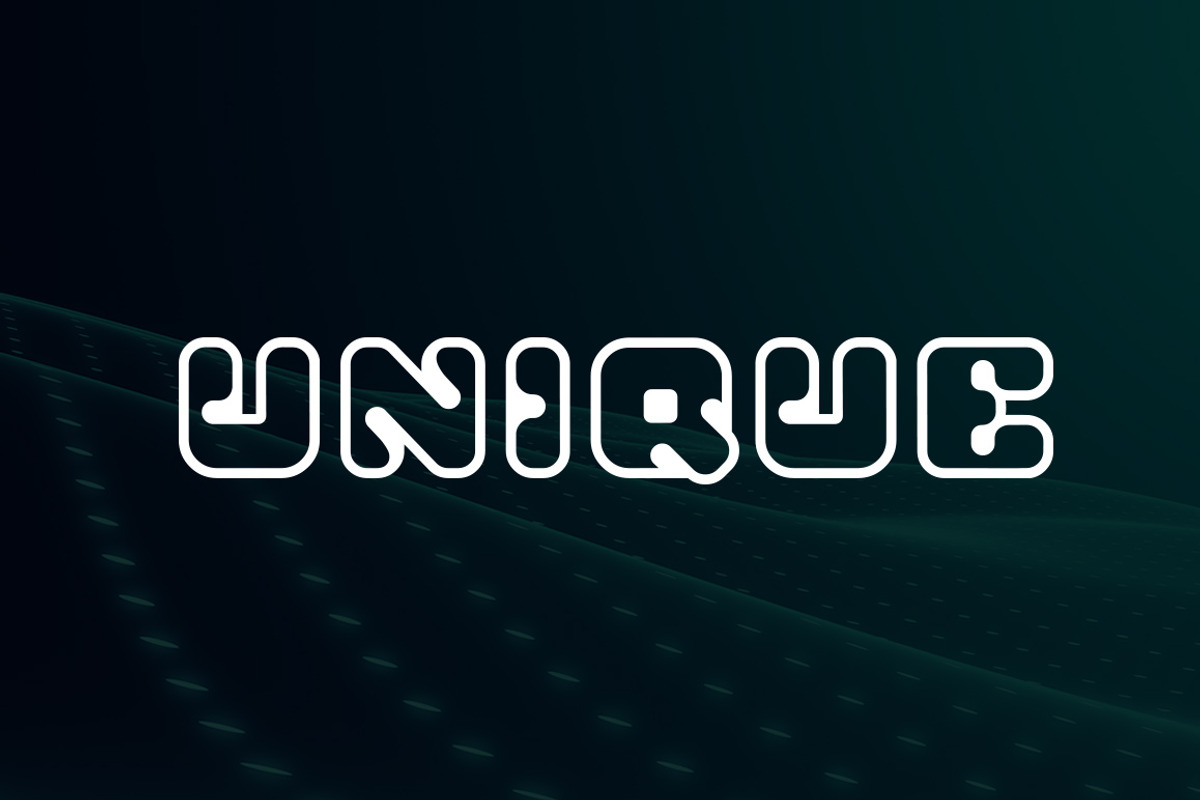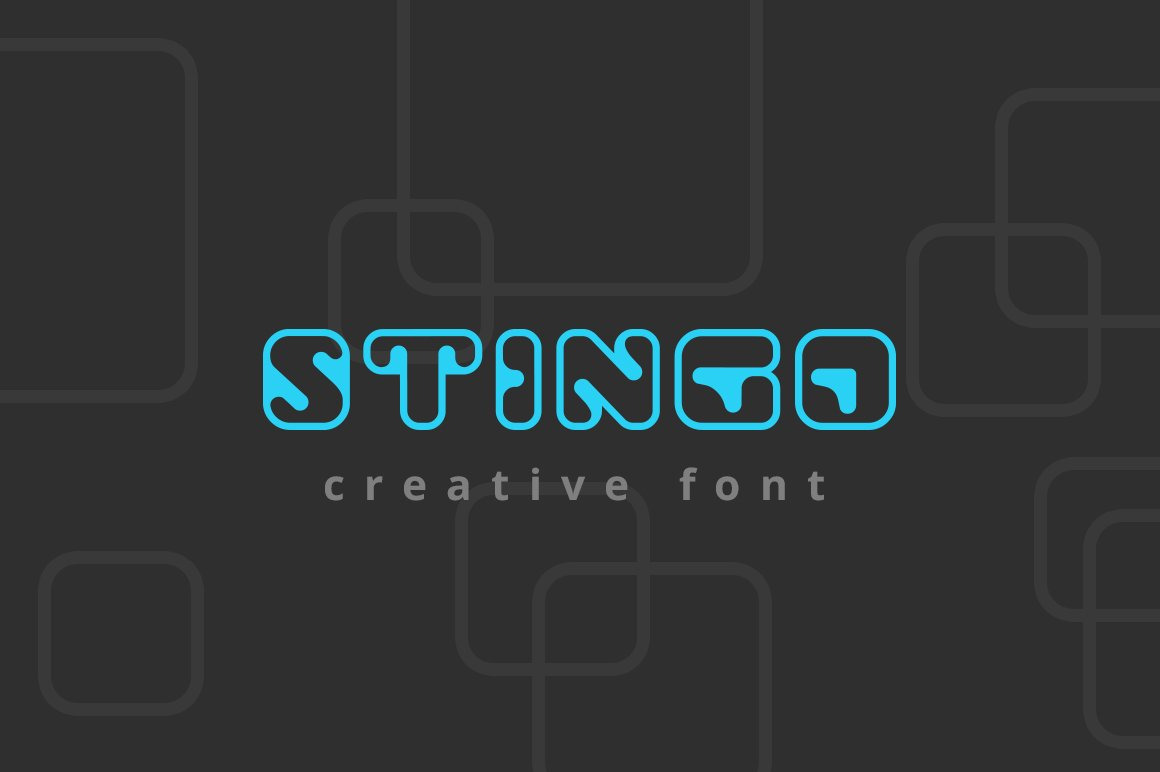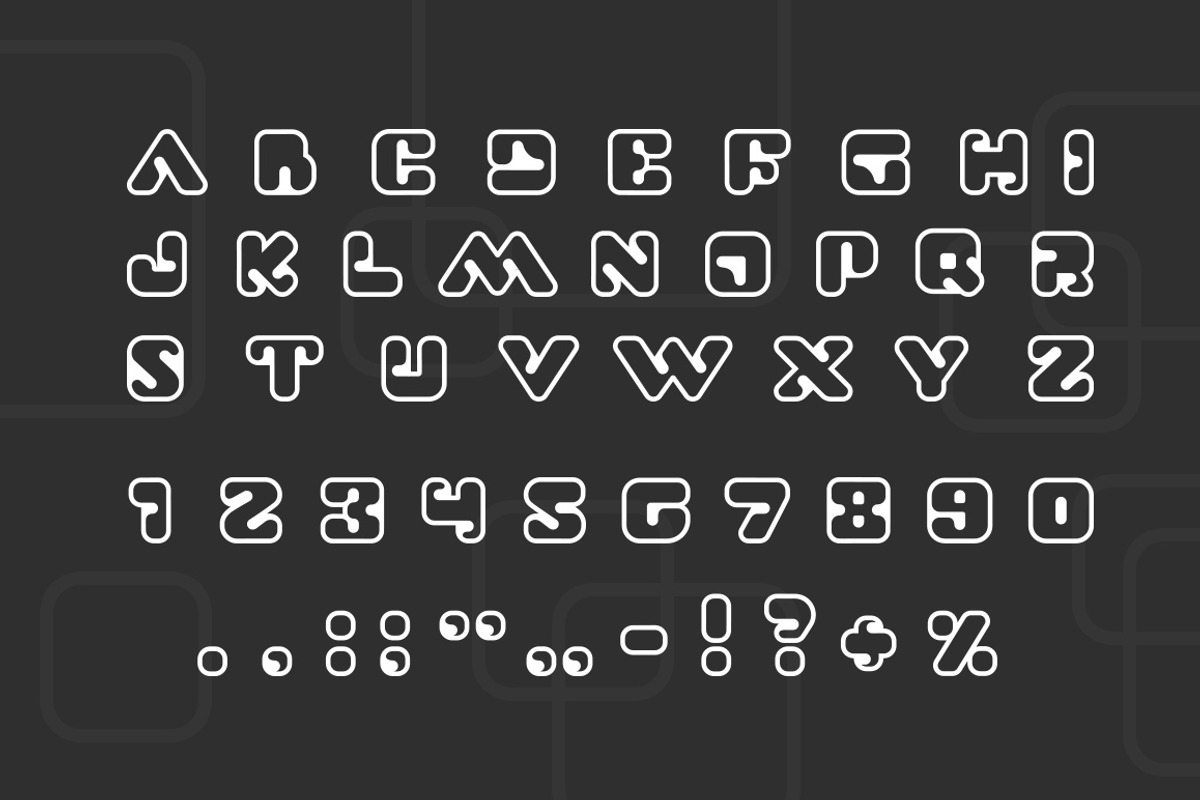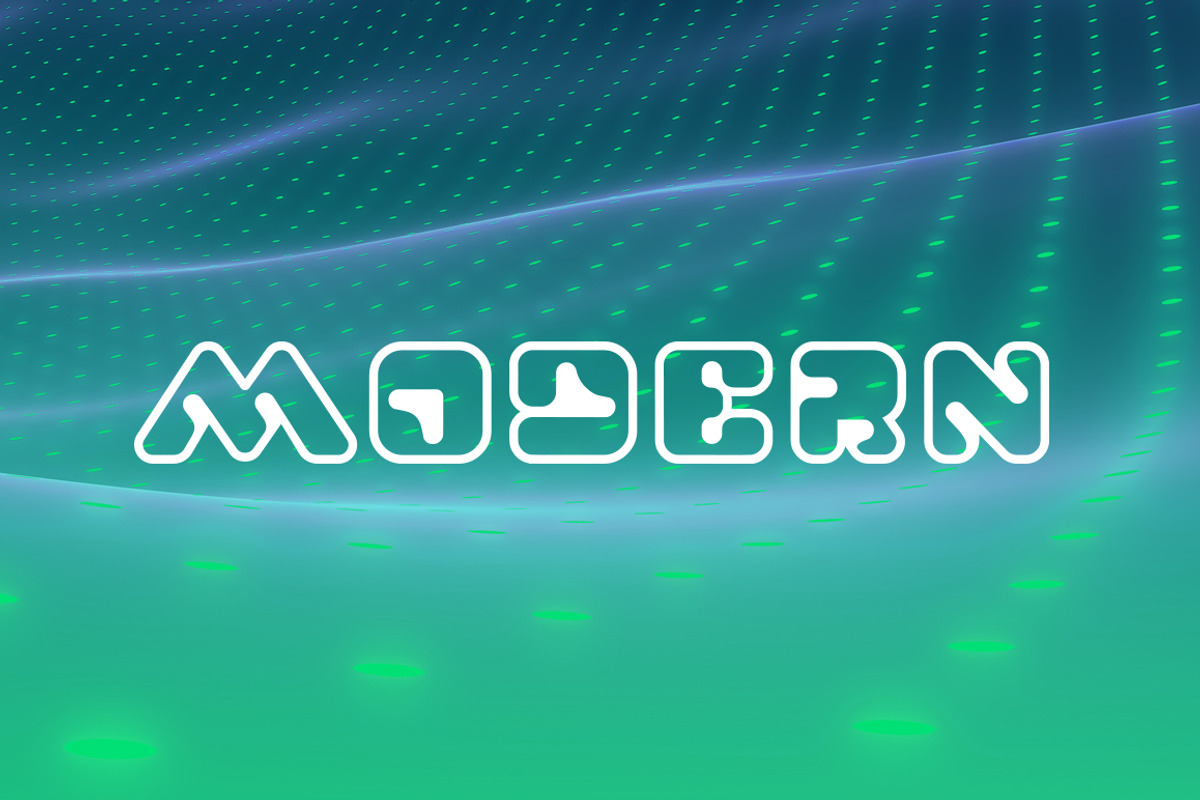
Stingo Digital Font
Stingo is innovative technology science robotics digital futuristic creative font can be used as logo design and branding, titles & headers, posters & banners in such areas as high-tech, internet & computers, business innovations etc.